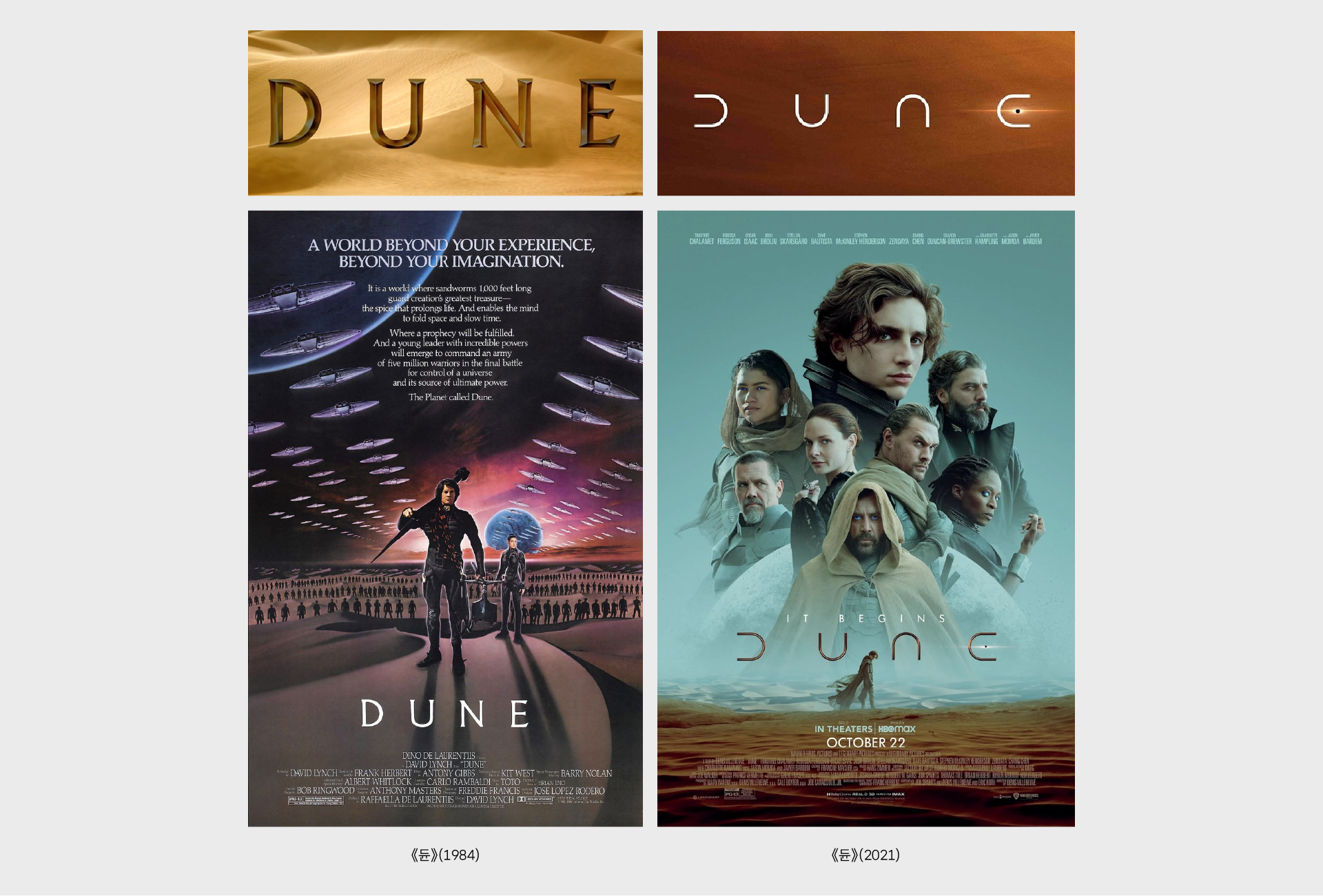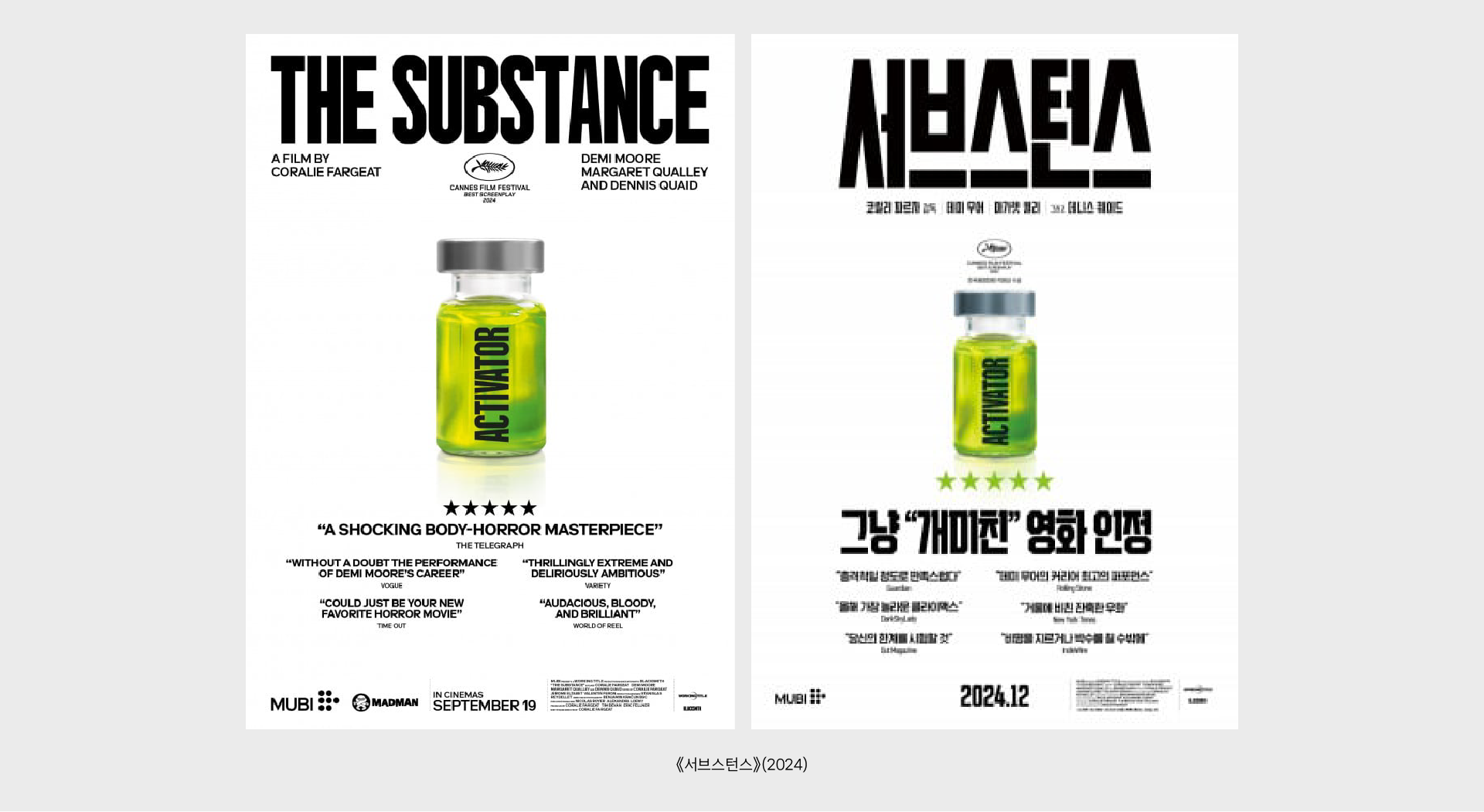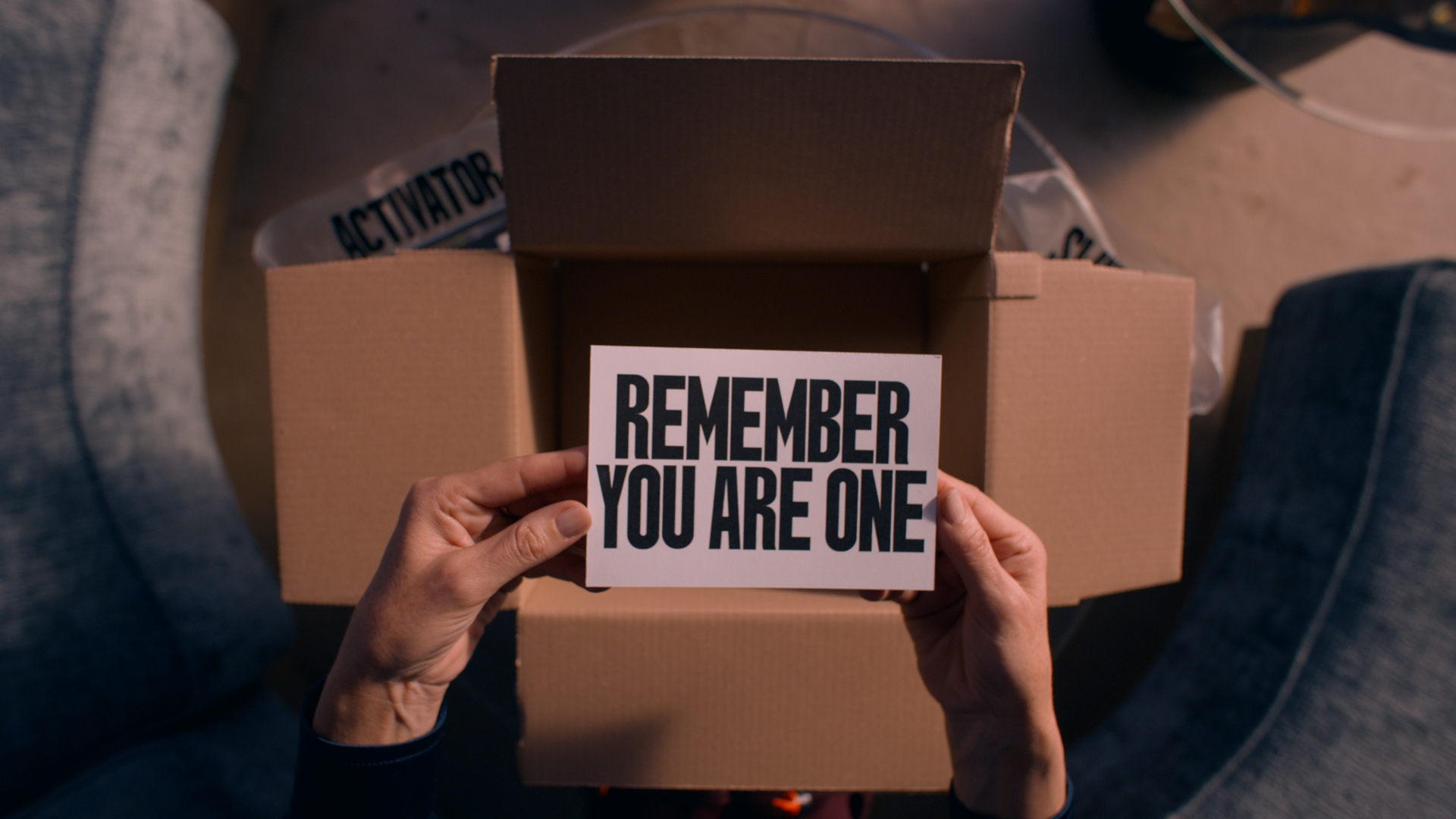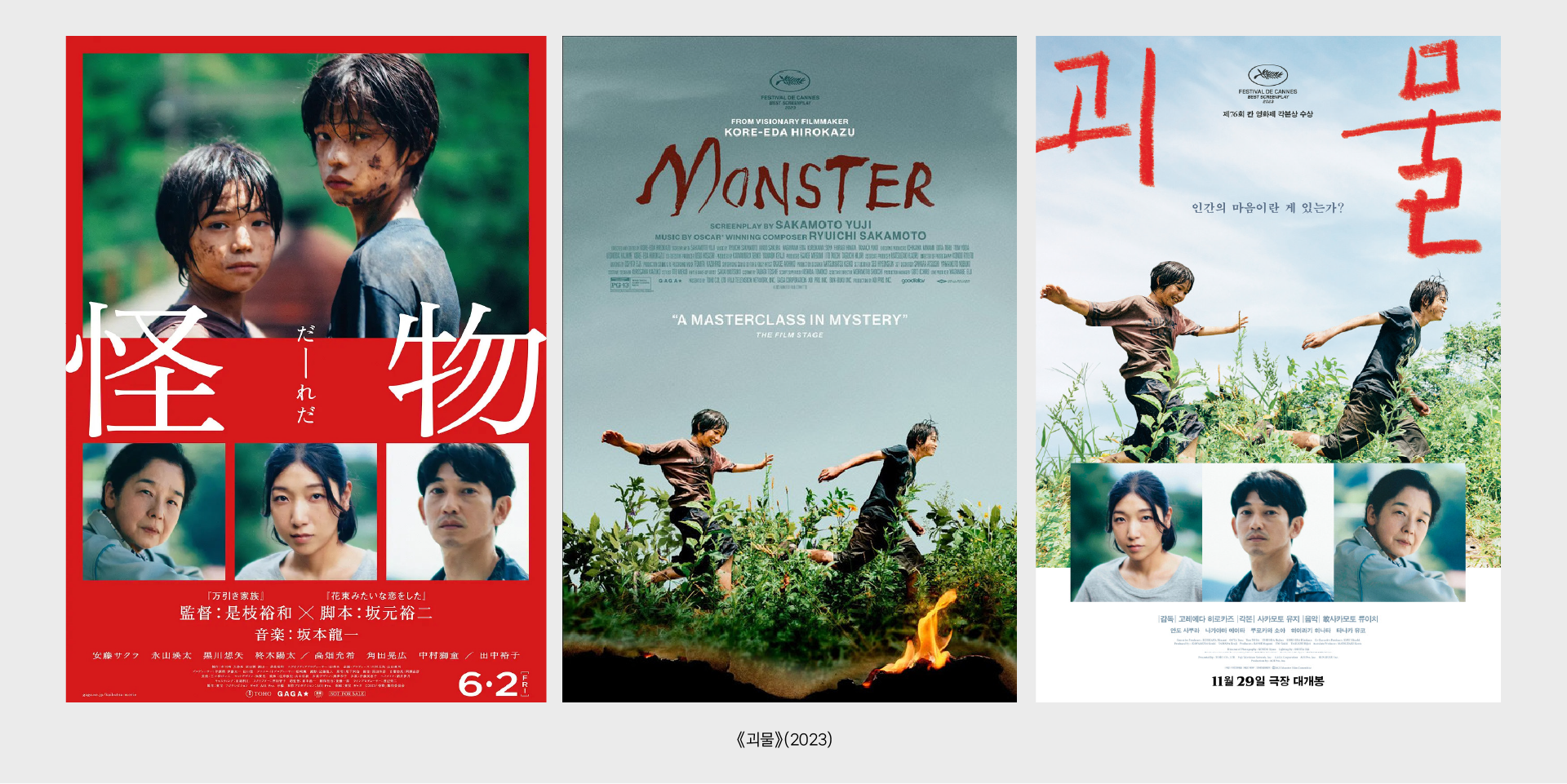
Do you like movies?
These days, you don’t have to go to a theater to watch one. From your bed at home to the subway on your commute, films are available anytime, anywhere, on your own terms. With that convenience comes an even wider range of choices. So how do you decide what to watch? A director, the cast, the story—there are plenty of factors. But more often than not, a movie’s first impression comes down to its title and poster. They function as a kind of visual language, delivering the film’s mood and message before anything else. Today, let’s take a closer look at the letters that make that first impression more compelling.
Letters on the Screen
We mentioned movie posters earlier, but in the past, lettering played a far more central role in films than it does today. Early cinema began as silent films—moving images without sound or spoken dialogue. This was the standard until the first sound film appeared in 1927.
Because there was no audio, everything from dialogue to background context had to be conveyed through text. These captions appeared on black screens inserted between scenes and were known as intertitles, or title cards. In a sense, text served as the film’s voice, speaking on behalf of the characters and the story itself.
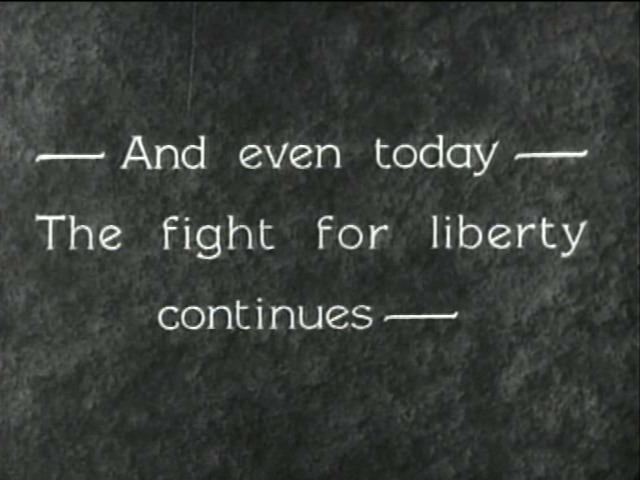
An intertitle card inserted into the silent film Liberty (1929)
The handwritten lettering most commonly seen in subtitles from this era is known as the Speedball style. The name comes from the Speedball pen nib, first released in 1915. From the late 1910s through the 1920s, this style evolved into a wide range of letterforms and became a staple of film intertitles.
Its rounded, flowing strokes and carefully balanced spacing made the text easy to read—even when the subtitles appeared only briefly on screen. You can see this visual language thoughtfully revisited in Babylon (2022), which portrays the golden age of silent cinema and weaves in a number of compelling episodes from that period.
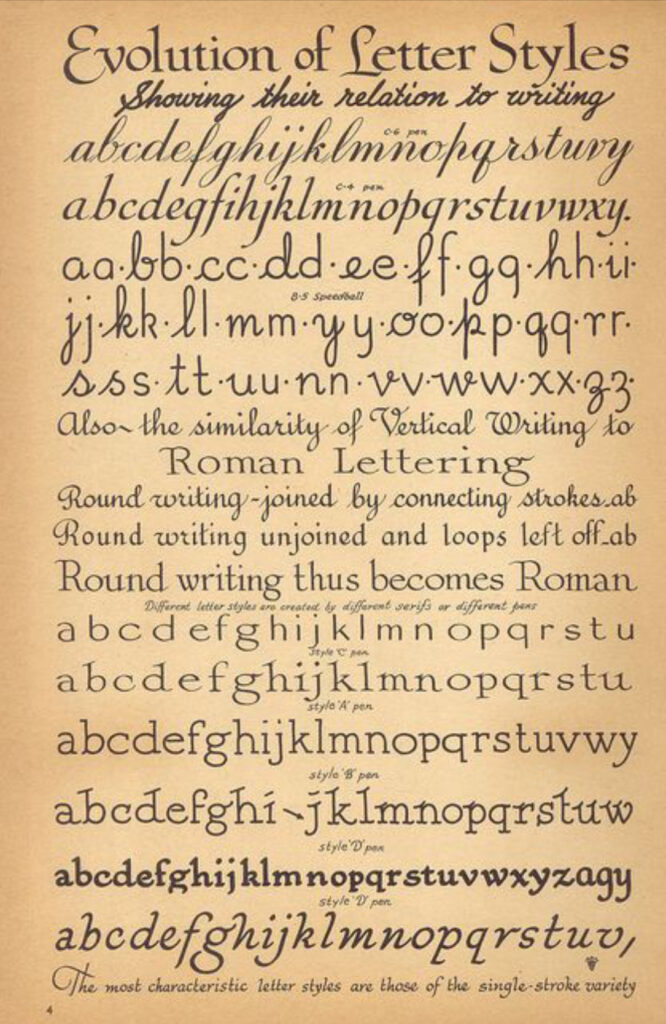
The evolution of Speedball pen lettering
As filmmaking technology advanced and cinema entered the era of sound, intertitles gradually disappeared. Even so, lettering has never lost its importance on screen. Text continues to play a key role throughout films—sometimes as a functional element, like opening credits, sometimes as a visual device that helps establish a specific time period or atmosphere, and at other moments as language itself, directly carrying the film’s central themes.
Among the many roles text plays in film, today we’ll focus specifically on lettering in movie posters. A poster hints at a film’s setting and overall mood, and it always features the title. The way that title is lettered can give us a surprisingly clear sense of how the story might unfold—what kind of atmosphere to expect, even before watching a single scene.
That’s why the same title can feel entirely different when rendered in a different style of lettering. Shall we take a look at a few examples of the same title, different lettering below?
Same Title, Different Lettering
The film The Fall: Director’s Cut (2024) became an unexpected box-office hit after its re-release, driven largely by word of mouth about its breathtaking visuals—created entirely without CG. The film is a remastered director’s cut of The Fall: The Golden Age of Cinema, first released in 2006. With the return to theaters nearly two decades later, the poster typography also underwent a striking transformation.
The original poster leaned into mystery. A collage of faces created an enigmatic mood, while the title appeared in a classic serif style that emphasized a sense of mythical fantasy. Sharp serifs and elongated curves added an ornate, almost old-world elegance, reinforcing the film’s fairy-tale qualities.
By contrast, the 2024 director’s cut poster takes a completely different approach. Set against a bold red background, the composition feels more restrained at first glance, but the strong color contrast immediately creates tension and intrigue. The title is rendered in an extreme, condensed sans-serif, stretched vertically and scaled large across the surface. Visually, it amplifies the meaning of The Fall itself—suggesting literal descent and free fall through typography alone.
The classical, decorative tone of the original is stripped away. In its place is a modern, forceful impression that feels deliberately aimed at a new generation of viewers—less nostalgic, more immediate, and impossible to ignore.
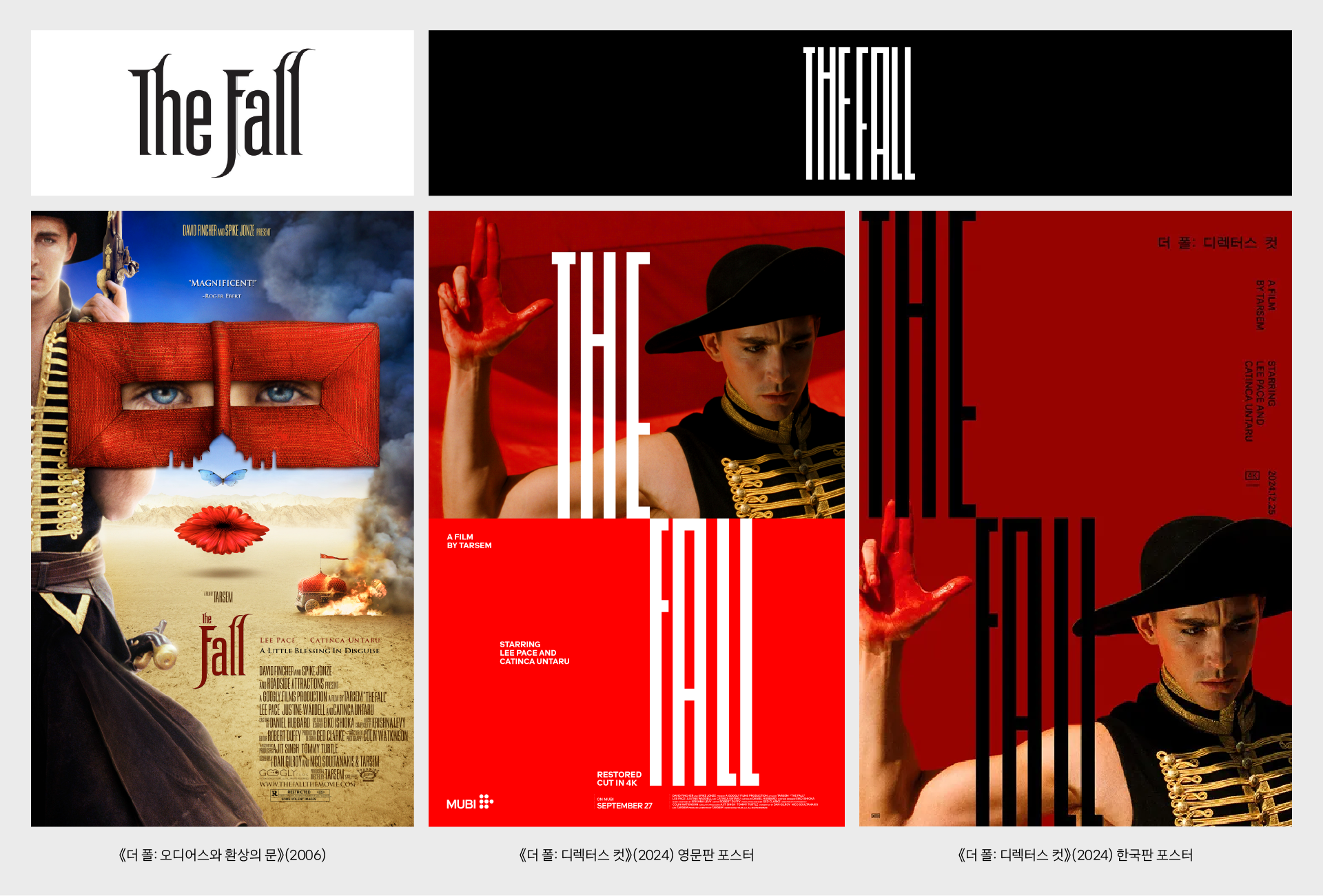
As a similar example, let’s compare the posters for Dune. Before the version starring Timothée Chalamet became widely familiar, Dune had already been adapted into live action once before.
In Dune (1984), the poster features spacecraft and an unknown universe rendered through a classic serif title. The typography reinforces the epic scale of the original novel, leaning into grandeur and myth. Decorative serifs and traditional letterforms align with the film’s operatic, almost fantastical interpretation of the story.
Today, we focused primarily on the lettering used in movie posters. As you think about films you personally hold dear, it can be interesting to recall how their titles were visually expressed and to try interpreting them in your own way. You may find that the film’s hidden meanings come into sharper focus through this lens.
There are still many films and stories left to explore. With any luck, we’ll return next time with more insights into the visual language of cinema. We’ll be back soon with another story.